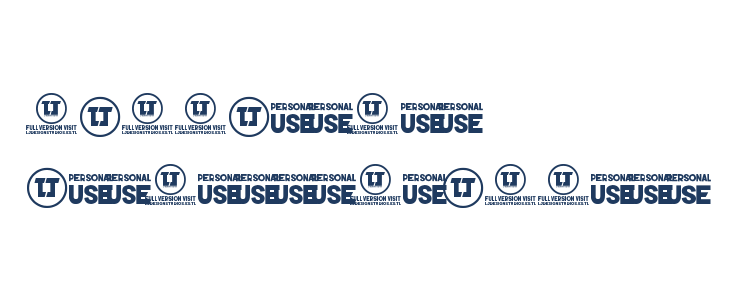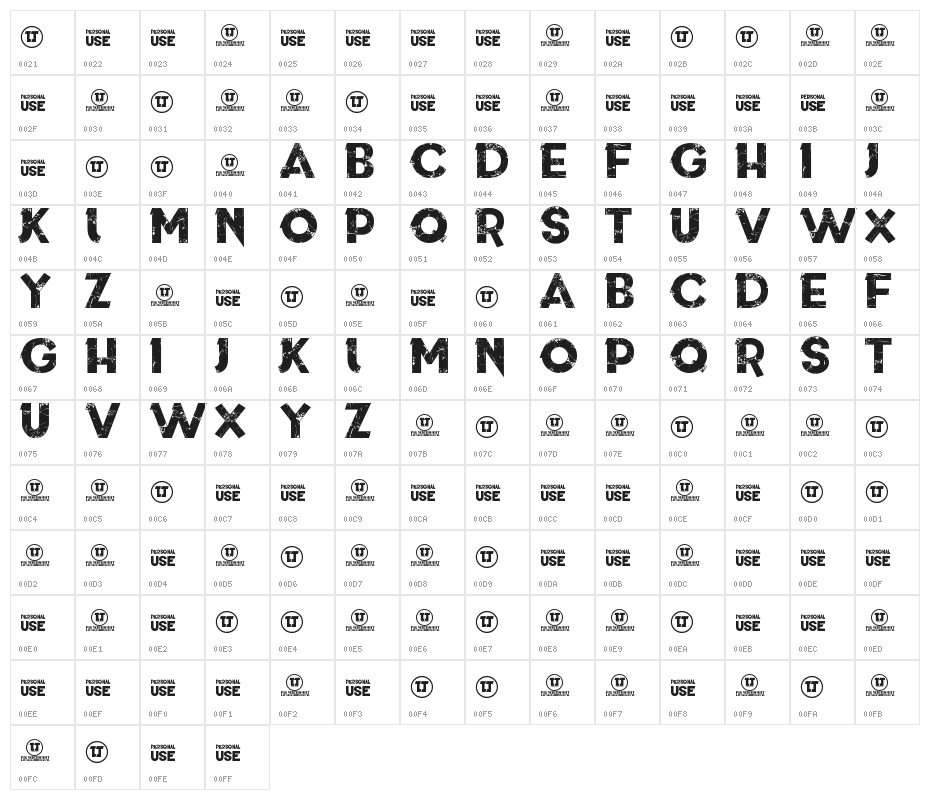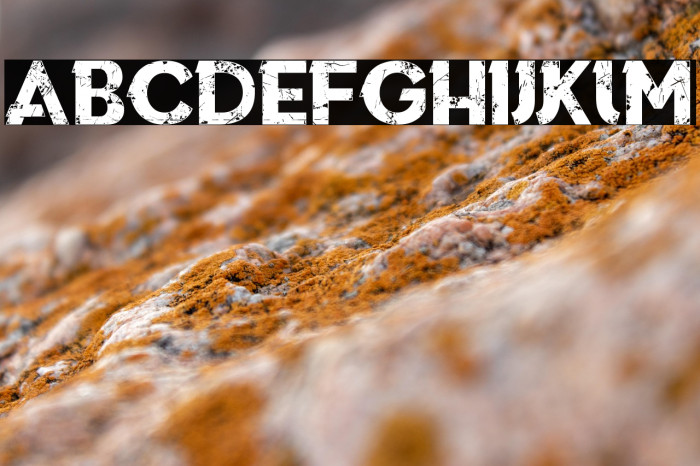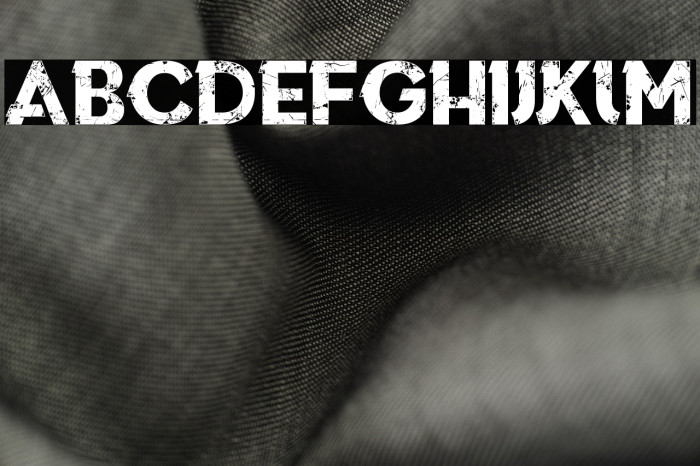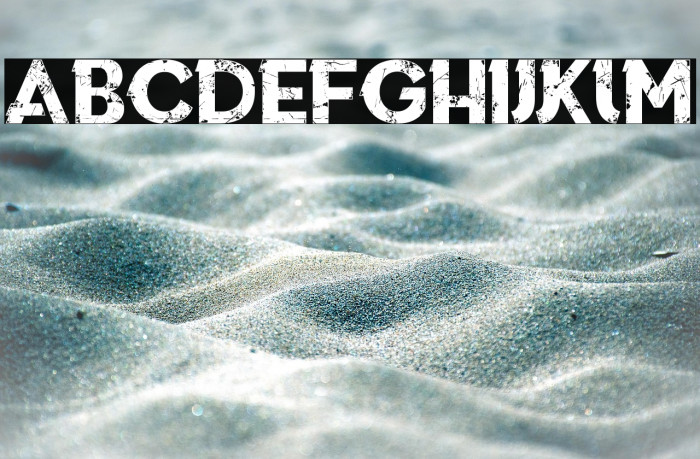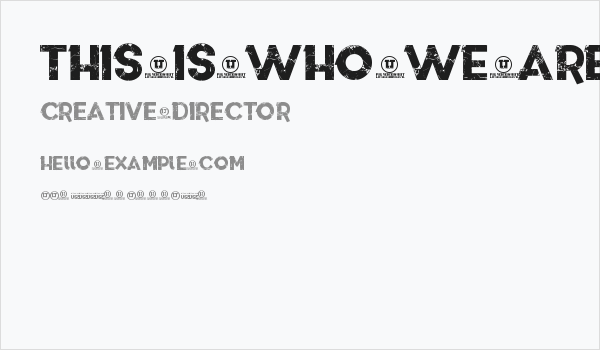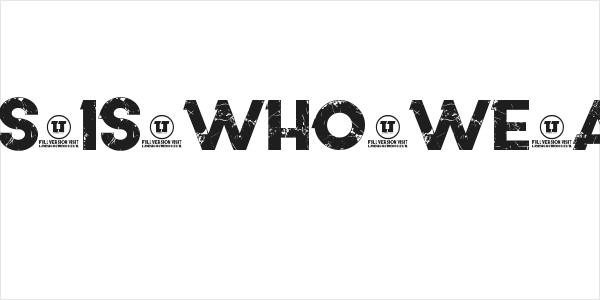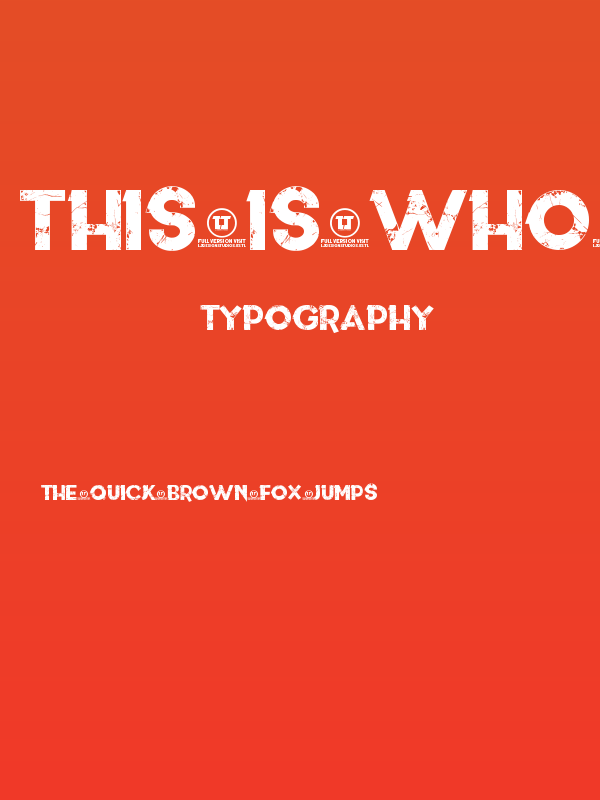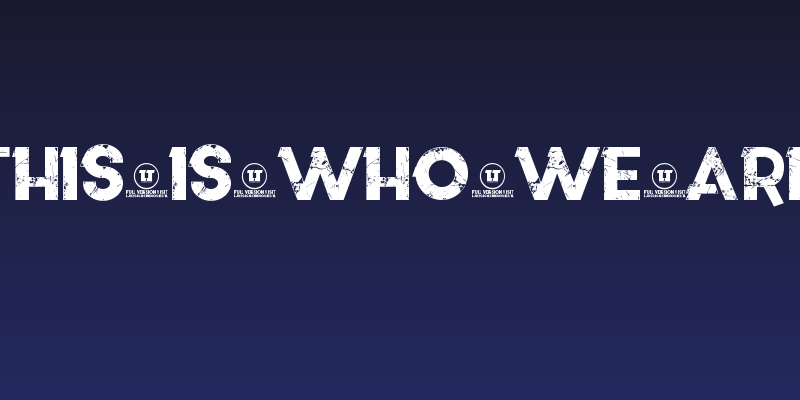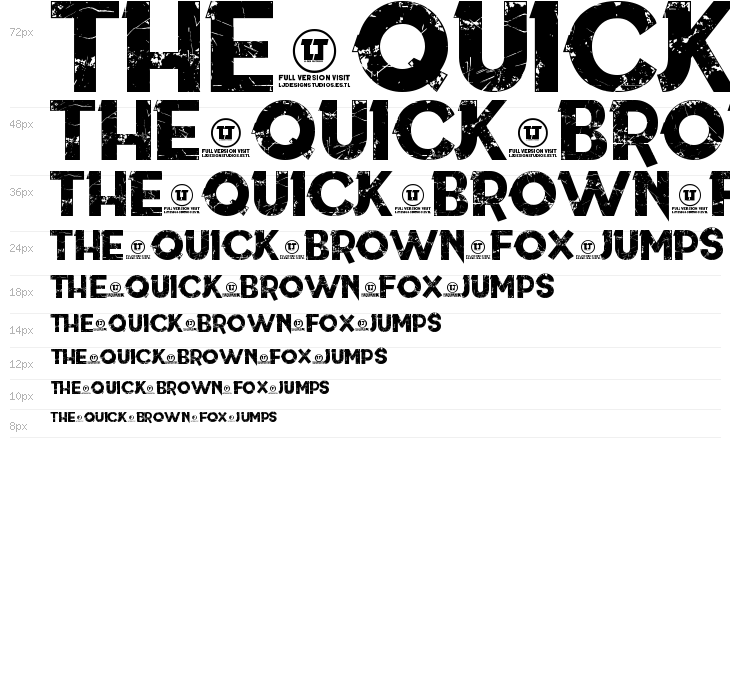
This is who we are Font
This is who we are Description
This font features a bold, distressed style with a textured appearance that gives it a rugged and worn look. The uppercase letters are prominently displayed, showcasing a strong and impactful design. The texture within each character adds a sense of depth and character, making it ideal for projects that require a vintage or grunge aesthetic. The font's boldness ensures that it stands out, while the distressed elements provide a unique visual interest. This combination of boldness and texture makes it suitable for eye-catching designs.